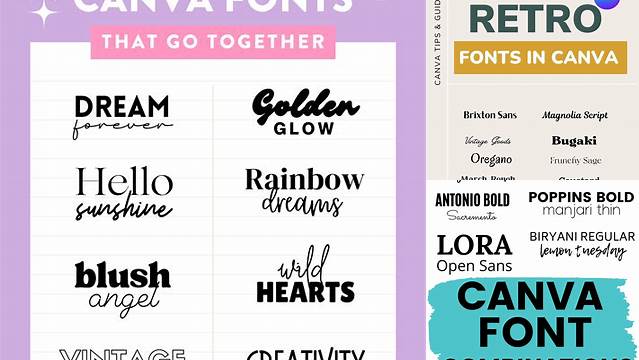
Top Fonts For Titles In Canva: Make Your Designs Pop!
Creating eye-catching titles in Canva is crucial for grabbing attention, whether you're designing social media graphics, presentations, or posters. The right font can make all the difference! So, what are the best fonts for titles in Canva? This guide dives deep into the world of Canva fonts, exploring various styles and how to use them effectively. Let's get started, guys!
1. Understanding the Importance of Font Choice in Design
Choosing the best fonts for titles in Canva isn't just about picking something that looks pretty; it's about conveying the right message and feeling. Think of fonts as the voice of your design. A bold, sans-serif font might shout confidence and modernity, while a delicate script font whispers elegance and sophistication. Understanding this connection is key to making your titles truly impactful. The right font helps reinforce your brand identity and communicate the intended tone of your message, whether it's playful, serious, or informative. When selecting fonts for your Canva titles, consider your target audience and the overall aesthetic you aim to achieve. A mismatch between font style and content can confuse or even deter viewers. For example, using a Comic Sans-like font for a professional business presentation could undermine your credibility. Instead, carefully curated font pairings can create visual harmony and enhance the readability of your designs. Also, consider the context where your design will be displayed. A font that looks stunning on a large poster might appear cluttered on a smaller social media graphic. Ultimately, the goal is to choose a font that not only looks visually appealing but also enhances the clarity and effectiveness of your message. So, next time you're browsing through Canva's font library, take a moment to reflect on the story you want to tell and the feeling you want to evoke. This thoughtful approach will help you select fonts that truly resonate with your audience and make your titles stand out.
2. Best Serif Fonts for Titles in Canva
Serif fonts, with their classic and traditional feel, are a fantastic choice for titles that need a touch of elegance and authority. They're characterized by the small strokes or "serifs" at the end of each letter, giving them a formal and readable quality. When it comes to the best fonts for titles in Canva, serif fonts offer a wide range of options, from the timeless sophistication of Times New Roman to the modern charm of Playfair Display. Using serif fonts can instantly elevate your design, lending it a sense of credibility and polish. Imagine creating a poster for a historical event – a well-chosen serif font could perfectly capture the era's essence. Or, consider using a serif font for the title of a formal invitation, adding a touch of class and refinement. One of the key advantages of serif fonts is their versatility. They work well in both print and digital formats, making them a reliable choice for various design projects. However, it's crucial to select a serif font that is legible at different sizes. A highly decorative serif font might look stunning in a large headline but could become illegible in smaller text. Canva offers a diverse selection of serif fonts, each with its unique personality. For example, Lora is a popular choice for its balanced and readable design, while Merriweather is known for its robustness and suitability for body text and headlines. Experimenting with different serif fonts in Canva can help you discover the perfect match for your project, ensuring your titles not only look beautiful but also communicate effectively. So, guys, don't shy away from the classic appeal of serif fonts – they might just be the secret ingredient your title needs!
3. Top Sans-Serif Fonts for Modern Titles
For a modern and clean aesthetic, sans-serif fonts are where it's at! These fonts lack the small strokes (serifs) found in their traditional counterparts, giving them a streamlined and contemporary feel. When thinking about the best fonts for titles in Canva that exude modernity, sans-serif fonts should be your go-to. They are incredibly versatile and work well in a variety of contexts, from website headers to social media graphics. The absence of serifs makes them highly legible, especially in digital formats, which is a major plus in today's online world. Think about sleek tech company logos or minimalist poster designs – chances are, they're using sans-serif fonts. One of the great things about sans-serif fonts in Canva is their ability to convey a sense of clarity and directness. They're perfect for titles that need to make a bold statement without any fuss. Fonts like Montserrat, Open Sans, and Lato are popular choices for their clean lines and excellent readability. Montserrat, for example, has a geometric feel that makes it ideal for contemporary designs, while Open Sans is known for its friendly and approachable character. When using sans-serif fonts, it's important to consider the weight and spacing. A heavier weight can add emphasis to your title, while careful attention to letter spacing (kerning) can enhance readability. Canva provides tools to adjust these settings, allowing you to fine-tune your typography for the best results. So, if you're aiming for a modern, professional look, explore the range of sans-serif fonts in Canva. They're a fantastic way to make your titles stand out with a clean and contemporary edge. Remember, the right sans-serif font can transform your design from looking dated to cutting-edge in an instant!
4. Script and Handwritten Fonts for Creative Titles
If you're looking to add a touch of personality and flair to your titles, script and handwritten fonts are the way to go. These fonts mimic the flow of cursive handwriting, bringing a sense of artistry and uniqueness to your designs. When considering the best fonts for titles in Canva that convey creativity and individuality, script and handwritten fonts are a brilliant choice. They're perfect for projects that need a personal touch, such as wedding invitations, greeting cards, or blog headers. Imagine a beautifully handwritten font gracing the cover of a novel or a playful script font adorning a children's book – the possibilities are endless! However, it's crucial to use these fonts judiciously. Because of their decorative nature, script and handwritten fonts can sometimes be less legible than serif or sans-serif fonts, especially in smaller sizes. Therefore, it's best to reserve them for titles and headings where they can truly shine. Canva offers a diverse selection of script and handwritten fonts, each with its own distinct style. Some fonts have a formal and elegant feel, while others are more casual and whimsical. For example, Great Vibes is a popular choice for its graceful and flowing lines, making it ideal for wedding-related designs. On the other hand, Amatic SC has a playful, hand-drawn quality that's perfect for informal projects. When using script and handwritten fonts in Canva, consider the overall tone of your design. A formal script font might not be the best fit for a casual project, and vice versa. Also, think about pairing these fonts with simpler serif or sans-serif fonts for body text to ensure readability. The key is to strike a balance between visual appeal and clarity. So, if you want to inject some character and charm into your titles, explore Canva's collection of script and handwritten fonts. They're a fantastic way to make your designs stand out from the crowd and leave a lasting impression.
5. Decorative Fonts for Unique Title Designs
For titles that truly demand attention, decorative fonts are your secret weapon. These fonts are designed to be eye-catching and unique, often featuring elaborate shapes, intricate details, and unconventional styles. When discussing the best fonts for titles in Canva that make a bold statement, decorative fonts are in a league of their own. They're ideal for posters, flyers, and any design where you want to grab the viewer's attention immediately. Think about movie posters with their dramatic, custom-designed fonts, or the quirky typography used in vintage advertisements – that's the power of decorative fonts at play. However, like script and handwritten fonts, decorative fonts should be used with care. Overusing them can lead to cluttered and illegible designs. It's best to reserve them for titles and headings and pair them with simpler fonts for the body text. The key is to use them sparingly to maximize their impact. Canva's library of decorative fonts is incredibly diverse, offering everything from bold, blocky fonts to whimsical, cartoon-inspired styles. Some fonts have a vintage feel, while others are futuristic and edgy. For example, a font with a distressed or textured look can add a touch of retro charm to your design, while a font with sharp, geometric shapes can convey a sense of modernity. When choosing a decorative font in Canva, consider the message you want to convey and the overall aesthetic of your design. A spooky, Halloween-themed font might be perfect for a party invitation but completely inappropriate for a business presentation. Also, think about the size and scale of your title. Some decorative fonts look fantastic in large headlines but become illegible when scaled down. So, if you're ready to unleash your creativity and create titles that truly stand out, dive into Canva's collection of decorative fonts. They're a fantastic way to add personality, flair, and a touch of the unexpected to your designs. Just remember to use them wisely, and you'll be sure to make a lasting impression.
6. Pairing Fonts for Impactful Titles
Pairing fonts effectively is an art, but it's a crucial skill for creating visually appealing and impactful titles. The best fonts for titles in Canva often work even better when paired with a complementary font for the body text or subheadings. The goal is to create a harmonious balance that enhances readability and overall design aesthetic. Think of it as a visual symphony, where different fonts play together to create a cohesive and pleasing experience. A common strategy is to pair a serif font with a sans-serif font. For example, a classic serif font like Playfair Display can be paired with a clean sans-serif font like Montserrat. This combination offers a nice contrast, with the serif font adding a touch of elegance to the title and the sans-serif font ensuring readability in the body text. Canva makes font pairing easy by suggesting font combinations within the design interface. These suggestions can be a great starting point, but it's also important to develop your eye for what works well together. Another approach is to pair fonts from the same font family but with different weights or styles. For instance, you could use a bold version of a font for the title and a lighter version for the body text. This creates a sense of visual hierarchy while maintaining a consistent look and feel. When pairing fonts in Canva, consider the personality and tone you want to convey. A formal serif font might pair well with a classic sans-serif font for a professional look, while a playful script font might be better suited with a simple sans-serif font for a more casual feel. It's also important to ensure that the fonts you choose are legible and work well together at different sizes. Avoid pairing fonts that are too similar, as this can create a visually monotonous design. Instead, look for fonts that complement each other while still maintaining their individuality. So, guys, don't be afraid to experiment with different font pairings in Canva. It's a process of trial and error, but the results can be stunning. By mastering the art of font pairing, you can elevate your titles and create designs that are both visually appealing and highly effective.
7. Canva Font Combinations for Professional Titles
Creating professional titles requires a careful selection of fonts that convey authority, clarity, and credibility. The best fonts for titles in Canva in a professional context often involve classic serif and sans-serif pairings that exude sophistication and reliability. Think of corporate reports, business presentations, or academic papers – the typography plays a crucial role in establishing trust and conveying information effectively. One of the most reliable Canva font combinations for professional titles is pairing a serif font like Lora or Merriweather with a sans-serif font like Open Sans or Lato. Lora, with its elegant and readable design, is an excellent choice for titles, while Open Sans provides a clean and approachable feel for body text. This combination strikes a balance between formality and clarity, making it ideal for a wide range of professional applications. Another effective pairing is using Montserrat for titles and Roboto for body text. Montserrat's geometric and modern design lends a contemporary feel, while Roboto's clean and legible form ensures readability. This combination is particularly well-suited for digital designs, such as website headers or social media graphics. When choosing font combinations in Canva for professional titles, it's essential to consider the overall tone and message you want to convey. A font pairing that feels too casual or playful might undermine your credibility, while a combination that's too formal can feel stiff and unapproachable. It's also important to maintain consistency in your font choices across all your professional materials. Using the same font pairings for your business cards, letterheads, and presentations helps reinforce your brand identity and create a cohesive look and feel. Canva offers a variety of tools and templates that can help you create professional designs with ease. By exploring different font combinations in Canva and experimenting with different styles, you can find the perfect pairing for your professional titles. The key is to choose fonts that not only look good but also enhance the clarity and effectiveness of your message. So, guys, invest some time in selecting the right fonts for your professional titles – it's an investment that will pay off in terms of credibility and impact.
8. Font Sizes and Spacing for Title Readability
Readability is paramount when it comes to titles, and font sizes and spacing play a critical role in ensuring your message is clear and easily digestible. The best fonts for titles in Canva can be rendered ineffective if the size and spacing aren't optimized for readability. Think of it as crafting a headline that not only catches the eye but also guides the reader effortlessly through the text. Choosing the right font size in Canva depends on several factors, including the font style, the length of the title, and the context in which it will be viewed. A decorative font might require a larger size to maintain legibility, while a clean sans-serif font can often be used effectively at smaller sizes. For large headlines and posters, you'll typically want to use a font size of 36 points or higher. For smaller titles, such as those used in social media graphics or presentations, a font size of 24 to 36 points is often a good starting point. However, it's always important to test your title at different sizes to ensure it remains legible. In addition to font size, spacing is crucial for readability. Proper letter spacing (kerning) and line spacing (leading) can make a significant difference in how easily your title can be read. Canva provides tools to adjust both kerning and leading, allowing you to fine-tune the spacing to achieve the best results. Kerning refers to the space between individual letters, while leading refers to the space between lines of text. Adjusting these settings can help prevent letters from crowding each other or lines from appearing too cramped. When optimizing font spacing in Canva, aim for a balance that allows the letters to breathe without creating excessive gaps. A good rule of thumb is to use slightly more leading for longer titles to improve readability. Also, consider the background color and contrast. A title with poor contrast against its background can be difficult to read, regardless of the font size or spacing. So, guys, pay close attention to font sizes and spacing when designing your titles in Canva. By optimizing these elements, you can ensure that your message is not only visually appealing but also highly readable.
9. Using Bold and Italic Styles Effectively
Bold and italic styles are powerful tools for emphasizing certain words or phrases in your titles, but they should be used judiciously to maximize their impact. The best fonts for titles in Canva can be further enhanced by strategic use of bold and italic styles, drawing the reader's eye to key elements and creating visual interest. Think of bold and italic as the punctuation marks of typography, guiding the reader's attention and highlighting important information. Using bold in Canva is an effective way to make certain words stand out, such as keywords or action verbs. It can also be used to create a visual hierarchy within your title, indicating which words are most important. However, overusing bold can dilute its impact and make your title appear cluttered. It's best to reserve bold for specific words or phrases that you want to emphasize. Italics, on the other hand, are often used to add a touch of elegance or to differentiate text, such as book titles or foreign words. They can also be used to create a sense of movement or emphasis, but like bold, they should be used sparingly. Canva makes it easy to apply bold and italic styles to your text, but it's important to consider the font you're using. Some fonts have bolder or more distinctive italic styles than others, and some fonts may not have an italic version at all. When using bold and italic styles in Canva, think about the overall tone and message of your title. A title for a serious or professional design might benefit from subtle use of bold to highlight key words, while a title for a more casual or creative project might allow for more liberal use of both bold and italic. It's also important to ensure that your use of bold and italic is consistent throughout your design. Inconsistent use can create a jarring effect and distract the reader. So, guys, experiment with bold and italic styles in Canva, but remember that moderation is key. By using these styles effectively, you can add depth and emphasis to your titles, making them more engaging and impactful.
10. Color Psychology in Title Font Choices
Color plays a significant role in how we perceive and react to designs, and the color of your title font can have a powerful impact on the overall message and feeling it conveys. Understanding color psychology is essential for selecting the best fonts for titles in Canva and pairing them with the appropriate colors to achieve your desired effect. Think of color as the emotional undertone of your design, subtly influencing the viewer's perception and response. Color psychology is the study of how colors affect human behavior and emotions. Different colors evoke different feelings and associations, and choosing the right color for your title font can help you communicate your message more effectively. For example, blue is often associated with trust, stability, and professionalism, making it a popular choice for corporate designs. Red, on the other hand, can convey energy, excitement, or even danger, making it suitable for titles that need to grab attention quickly. Green is often associated with nature, growth, and harmony, while yellow can evoke feelings of happiness and optimism. Canva offers a wide range of color options for your fonts, allowing you to experiment with different hues and shades to find the perfect match for your design. When choosing font colors in Canva, it's important to consider the background color and the overall color palette of your design. Contrast is key – a title font that blends too much with the background will be difficult to read, while a font that contrasts too sharply can be jarring. It's also important to think about the cultural associations of colors. Different colors can have different meanings in different cultures, so it's important to be aware of your target audience and their cultural background. So, guys, take some time to explore the world of color psychology and how it relates to font choices. By understanding the emotional impact of different colors, you can create titles that not only look great but also communicate your message effectively.